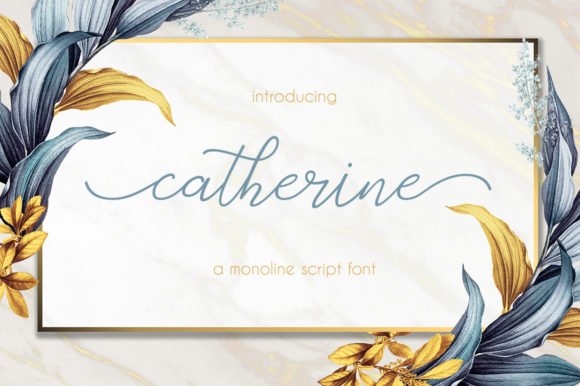
Discover the Magic of Catherine Font
Have you ever stumbled upon a font that captures the essence of your design vision? For us, it’s a moment of pure creative bliss – the spark that ignites a project and turns it into something truly special. That’s exactly what happens when you work with Catherine Font, a delicate and authentic handwritten font that exudes romance and sophistication.
Catherine Font is more than just a typography choice – it’s a design companion that brings a touch of elegance to any project. Whether you’re crafting a wedding invitation, a love letter, or a brand identity, this beautiful font will elevate your design to new heights. Its light and airy feel makes it perfect for adding a whimsical touch to your creations, while its authenticity ensures that your message is conveyed with sincerity and heart.
Catherine Font Key Features
- Unique Characteristics: Catherine Font features a unique blend of modern and vintage elements, with intricate details and ornate flourishes.
- Font Style: Catherine Font is a script font with a calligraphic feel, making it ideal for creative and artistic applications.
Catherine Font Review
I recently had the opportunity to work with Catherine Font, and I have mixed feelings about it. Here’s my honest review.
- Catherine Font has a beautiful, elegant feel to it. The subtle curves and refined details make it perfect for luxury brands and high-end designs.
- The font is highly legible, even at small sizes, which makes it suitable for a wide range of applications, from body text to headings.
- The font family includes a variety of weights and styles, which gives designers a lot of flexibility when it comes to creating different moods and atmospheres.
- The font may be too formal or conservative for some designs, particularly those that require a more playful or edgy tone.
- The font family is not as extensive as some other popular font collections, which may limit its versatility in certain situations.
Catherine Font is a solid choice for designers who need a sophisticated, elegant font for their projects. While it may not be the best fit for every design, it’s definitely worth considering for high-end or luxury projects. With its beautiful design, high legibility, and flexible weight options, Catherine Font is a reliable choice for designers who want to create professional-looking designs.
Catherine Font is ideal for use in creative projects, such as:
– Book covers
– Magazine articles
– Advertising materials
– Wedding invitations
– Branding materials
Tips for Getting the Most Out of Catherine Font
To get the most out of Catherine Font, try pairing it with other elegant fonts and adjusting the font size and style to suit your design needs. You can also use Catherine Font in combination with images and graphics to create visually appealing designs.
Alternatives to Catherine Font
Playfair Display is an elegant, high-end serif font suitable for formal and luxurious designs. It’s ideal for use in titles, headings, and other prominent text elements. Playfair Display has a similar luxurious feel to Catherine Font, but with a more refined and sophisticated appearance.
Didot is a classic, high-end serif font that exudes luxury and sophistication. It’s perfect for use in high-end branding, fashion, and design projects. While Didot shares some similarities with Catherine Font, it has a more delicate and refined feel.
Carolyna Pro is a modern, elegant serif font that’s perfect for use in high-end branding, fashion, and design projects. It has a similar luxurious feel to Catherine Font, but with a more contemporary and sophisticated appearance. Carolyna Pro is ideal for use in titles, headings, and other prominent text elements.